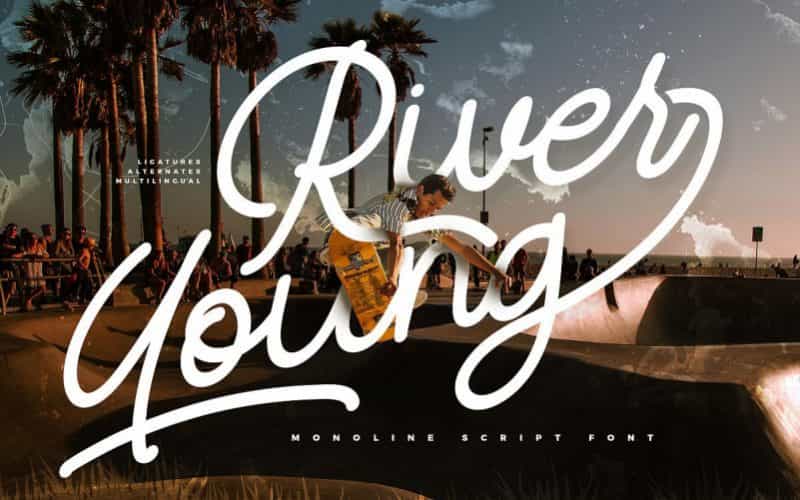
River Young | Monolingual Script Font with calligraphy style, Gorgeous for invitation like greeting cards, branding materials, business cards, quotes, posters, and more!Features of this font include numerous alternative characters in several OpenType features such as Stylistic Sets, Stylistic Alternates, Contextual Alternates, SWASHes and Ligatures.